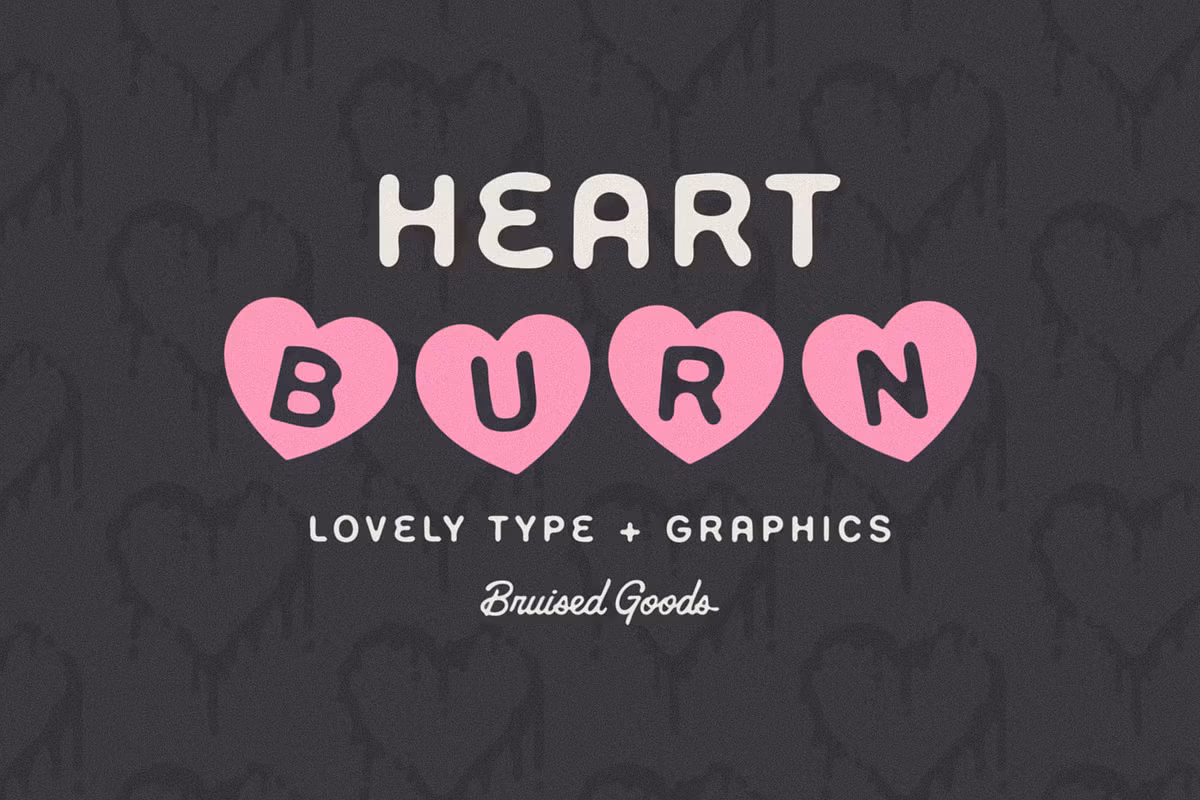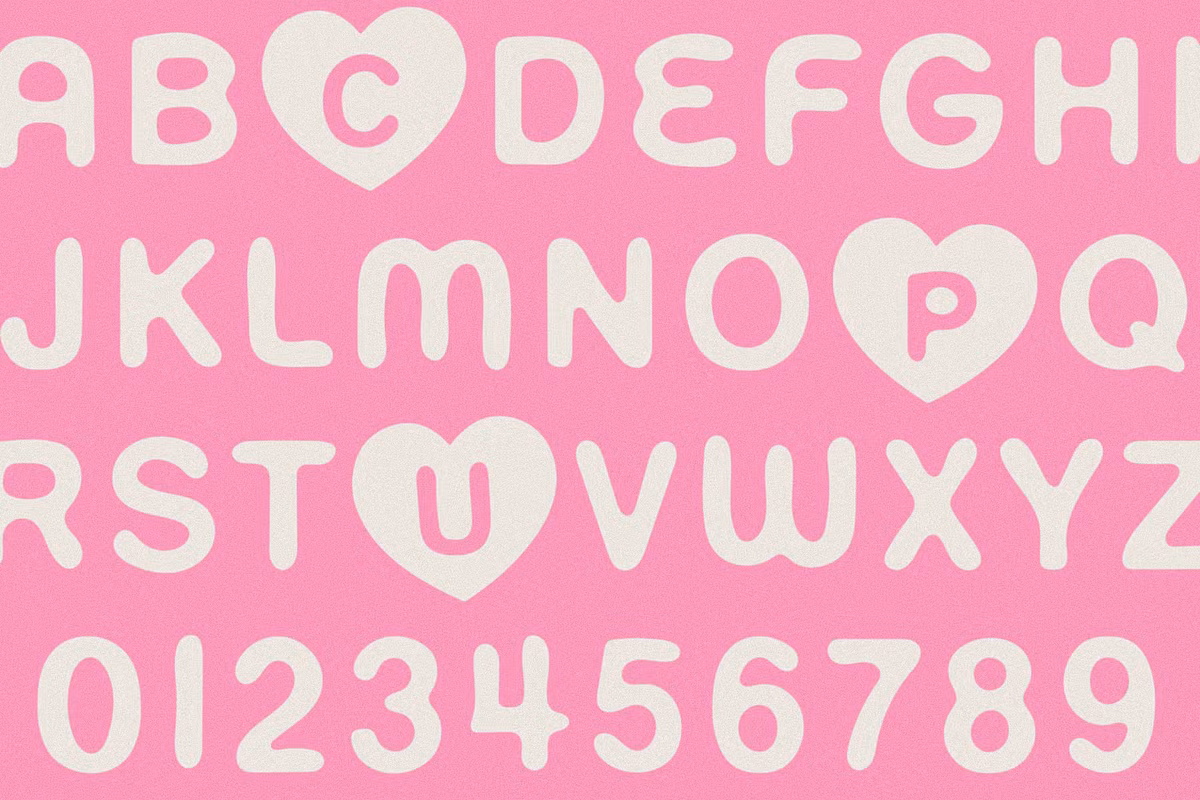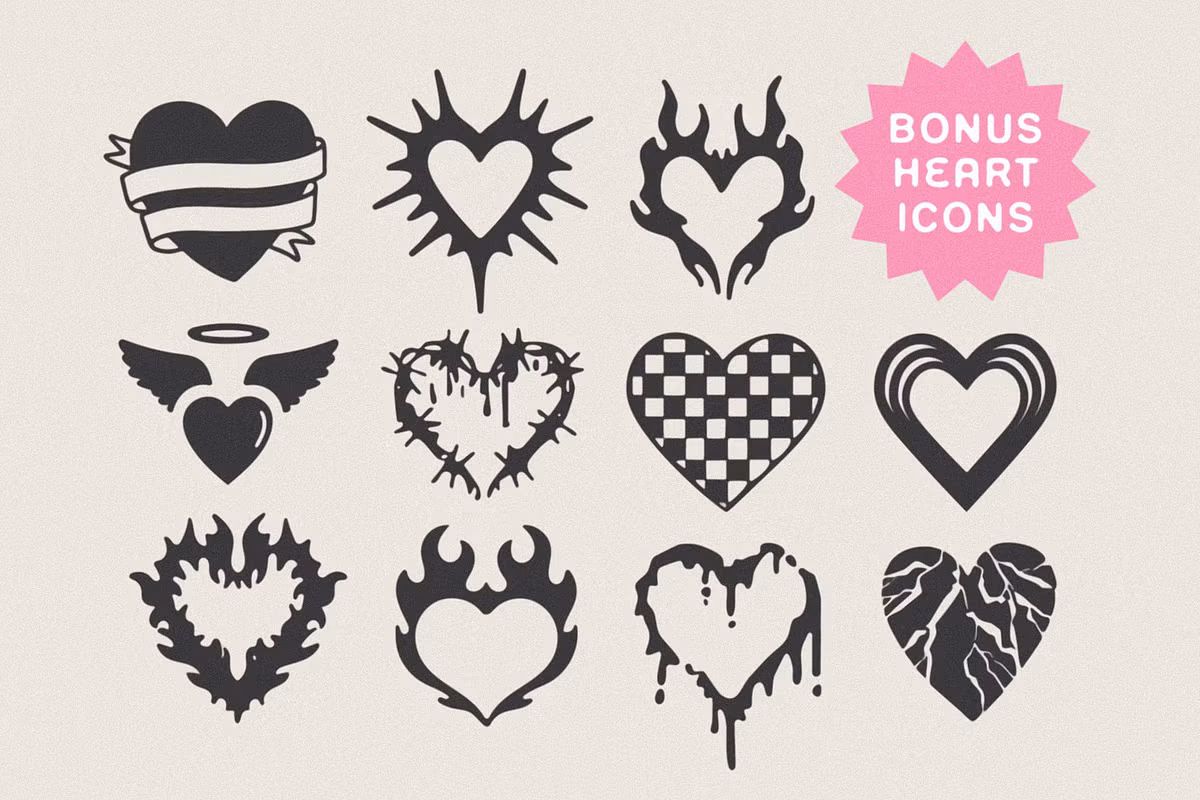
Heart Burn: Charming Typeface Collection with Heart Graphics
Meet Heart Burn, a lovely collection of fonts that’s all about spreading love and warmth. With its cute heart designs, this typeface is perfect for Valentine’s Day and all things sweet and romantic. Whether you’re writing a love letter, designing a product, or making an ad that grabs people’s attention, Heart Burn is the font to use if you want to show how you feel and add a playful touch to your work. It’s great for making your messages more personal and fun, and it’s sure to bring a smile to people’s faces. So why not give it a try and see how it can make your projects more lovable and engaging?
The Heart Burn font has a really cool style that combines fancy and fun elements. It’s got big, bold letters that are great for grabbing attention, and the heart designs add a sweet touch. Overall, it looks modern and romantic, which makes it perfect for lots of different uses. Whether you want to make a statement or just add a little charm, this font is a great choice. It’s unique and eye-catching, and the heart graphics give it a lovely, whimsical feel.
This typeface captures the essence of affection and joy, which is ideal for projects that require a touch of warmth. The curves and angles of the letters evoke feelings of love, making it an excellent choice for anything from wedding invitations to promotional materials for Valentine’s Day events.
Character Sets and Glyphs
The font known as Heart Burn has a lot to offer – it includes a wide range of characters, with 261 glyphs in total. This means it’s got all the uppercase letters, numbers, symbols, and punctuation you need to get your point across. Whether you’re working on a project that needs a professional tone or something more creative, Heart Burn’s got you covered. Since it’s focused on the English alphabet, you can use it to communicate your message in a way that’s both clear and visually appealing.
With its comprehensive character set, Heart Burn is a great choice for a variety of content types, from formal documents to more artistic projects. The font is also really easy to read and makes a big impact. Each letter and symbol is carefully made, so Heart Burn looks great and is useful for many design projects.
Use Cases for Heart Burn
Heart Burn is incredibly versatile, making it suitable for a wide array of applications. Here are some excellent use cases for this charming typeface:
- Advertisements: Capture attention with bold headlines that express love and joy.
- Album Covers: Create eye-catching designs for music albums that celebrate romance.
- Apparel: Design trendy t-shirts and clothing items that resonate with heartfelt messages.
- Cards and Invitations: Perfect for birthday, wedding, and holiday cards, as well as invitations for special events.
- Logos: Craft distinctive logos that convey a sense of warmth and approachability.
- Menu Design: Use it in restaurant menus to create a welcoming atmosphere.
- Web Design: Enhance website aesthetics with unique typography that draws visitors’ attention.
With its unique charm and versatility, Heart Burn can elevate any project and make it memorable.